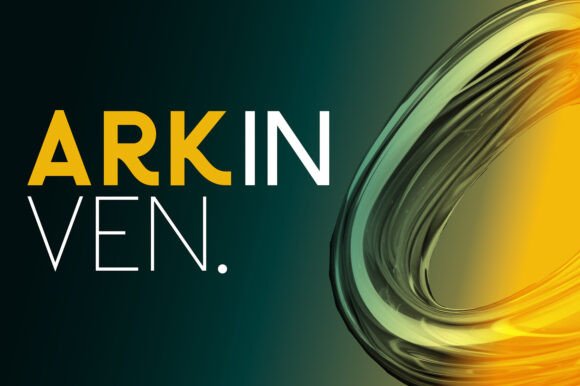
I still remember the frustration of working on a project, hours spent on perfecting every detail, only to be held back by one thing: the font. It was a client’s request for a sleek, modern look that would make their brand stand out in the tech industry. I scoured the internet, tried countless fonts, but none seemed to fit the bill. That was until I stumbled upon Arkinven Font.
With its clean lines, sharp edges, and geometric form, Arkinven was the breath of fresh air I needed. It was love at first sight – or rather, love at first type. In this article, I’ll share my experience with Arkinven, its features, and how to make the most of it in your designs.
Arkinven Font: The First Impression
Arkinven is a sans serif font that exudes confidence and style. Its minimalist aesthetic makes it perfect for designers seeking a bold yet elegant look. Whether you’re working on digital interfaces, editorial layouts, branding, or tech-focused designs, Arkinven is sure to make a statement.
- ✨ Clean and stylish design: Arkinven’s geometric form and sharp edges give it a modern look that’s hard to ignore.
- ✅ Versatility: It works beautifully in various design contexts, from digital interfaces to print materials.
- 💻 Digital-friendly: Arkinven’s clear and legible design makes it perfect for use on screens.
- 🤔 Limited character set: While Arkinven has a wide range of characters, it may not have every special character or glyph you need.
- ⚠️ Not ideal for body text: Due to its bold and modern design, Arkinven may not be the best choice for large blocks of body text.
- Experiment with OpenType features, such as Stylistic Alternates, to add some personality to your text.
- Explore the Glyphs panel to access additional characters and OpenType features.
The Designer Behind Arkinven
Arkinven was designed with the modern designer in mind. Its creator, inspired by the geometric shapes and clean lines of urban landscapes, aimed to craft a font that would be both stylish and versatile. The result is a font that’s perfect for designers seeking a bold yet elegant look.
| Font Name | Arkinven Font |
| Author | arifpoernomo87 |
Q: What is Arkinven Font?
A: Arkinven is a clean and stylish sans serif font designed for bold impressions and minimal aesthetics.
Q: Is Arkinven suitable for body text?
A: While Arkinven is a beautiful font, it may not be the best choice for large blocks of body text due to its bold design.